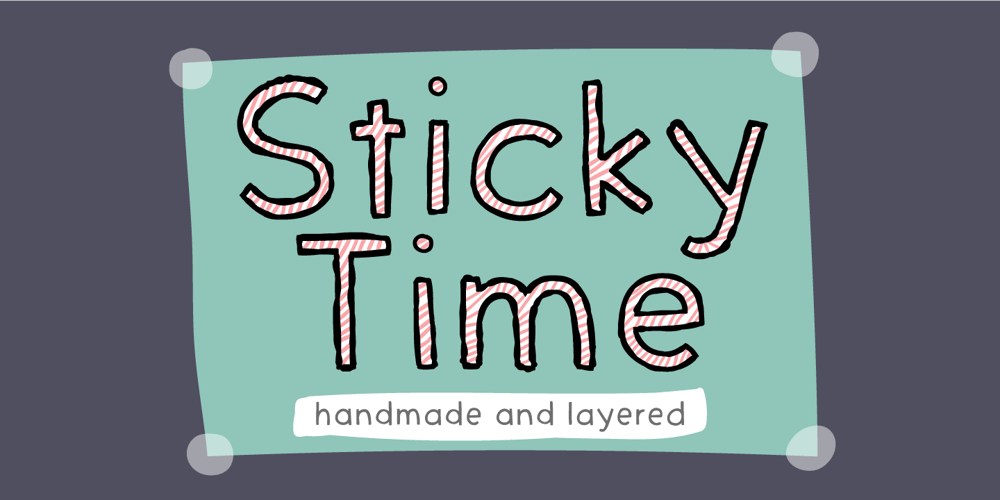
Sticky Time
Sticky Time font
Sticky Time Font Family was designed by Jakob Fischer and published by Bogstav. Sticky Time contains 5 styles and family package options. Here’s my super legible and handmade font. I’ve made several versions, and they overlap and compliments each other very sweetly.To enhance that nice handmade look, the outline and striped versions are a bit more rough – just like they all come with 3 different versions of each lowercase letter!